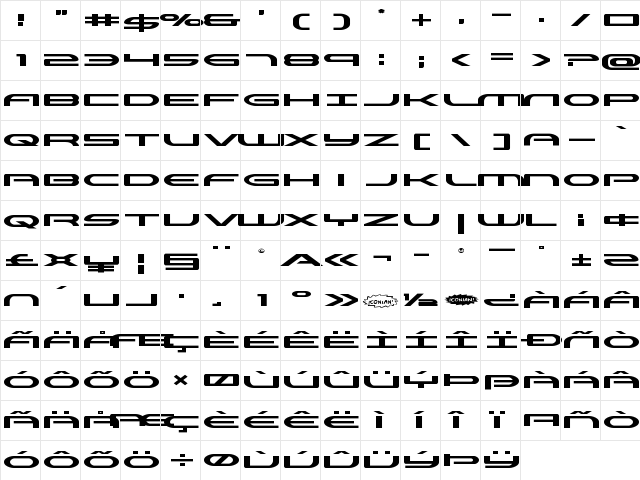
Antietam Extra-Expanded Extra-Expanded
Design Context for Antietam Extra-Expanded Typeface
Antietam Extra-Expanded offers clean, dependable letterforms without strong stylistic allegiance, making it a practical choice for designers who need flexibility.